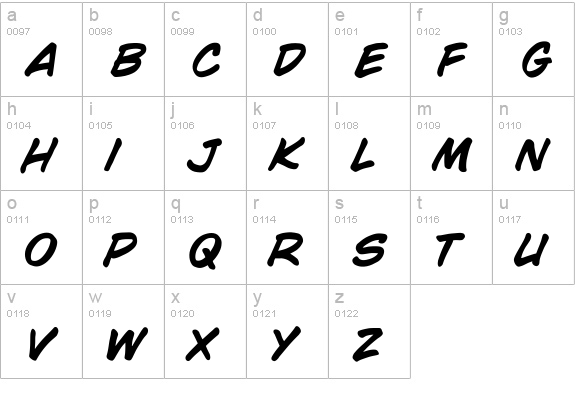
Introducing CCWildWords-BoldItalic font, a bold and dynamic typeface designed to make a statement. With its unique combination of wild curves and striking angles, this font exudes a sense of creativity and energy. Perfect for adding a touch of excitement to your designs, whether for posters, branding, or social media graphics. What sets CCWildWords-BoldItalic apart is its versatility - it can be used for both headlines and body text, making it a great choice for projects of all sizes. The bold and italic styling adds a touch of drama and sophistication, ensuring that your text stands out from the crowd. And the best part? CCWildWords-BoldItalic is available for free download at FontsMarket.com. So go ahead and unleash your creativity with this eye-catching font that is sure to make a lasting impression.